Brewery Vintage Typeface
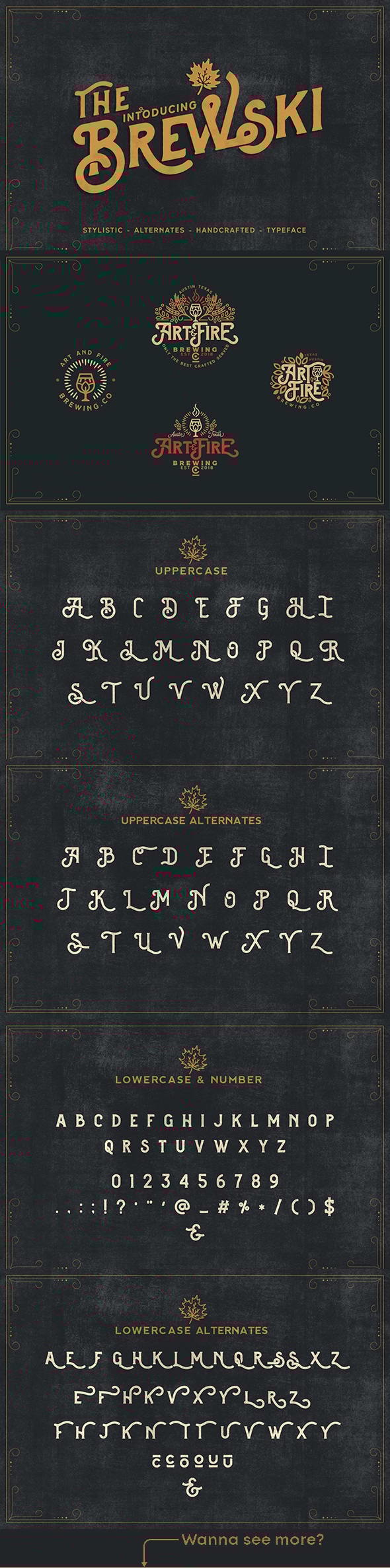
Brewery Vintage Typeface is a carefully crafted retro serif font ideal for breweries, bar branding, or any vintage-themed project needing authentic character. It offers layered styles for depth and a timeless look perfect for signage, merchandise, and logo designs.
Who it's suitable forCraft beverage brands, vintage logo designers, event marketers
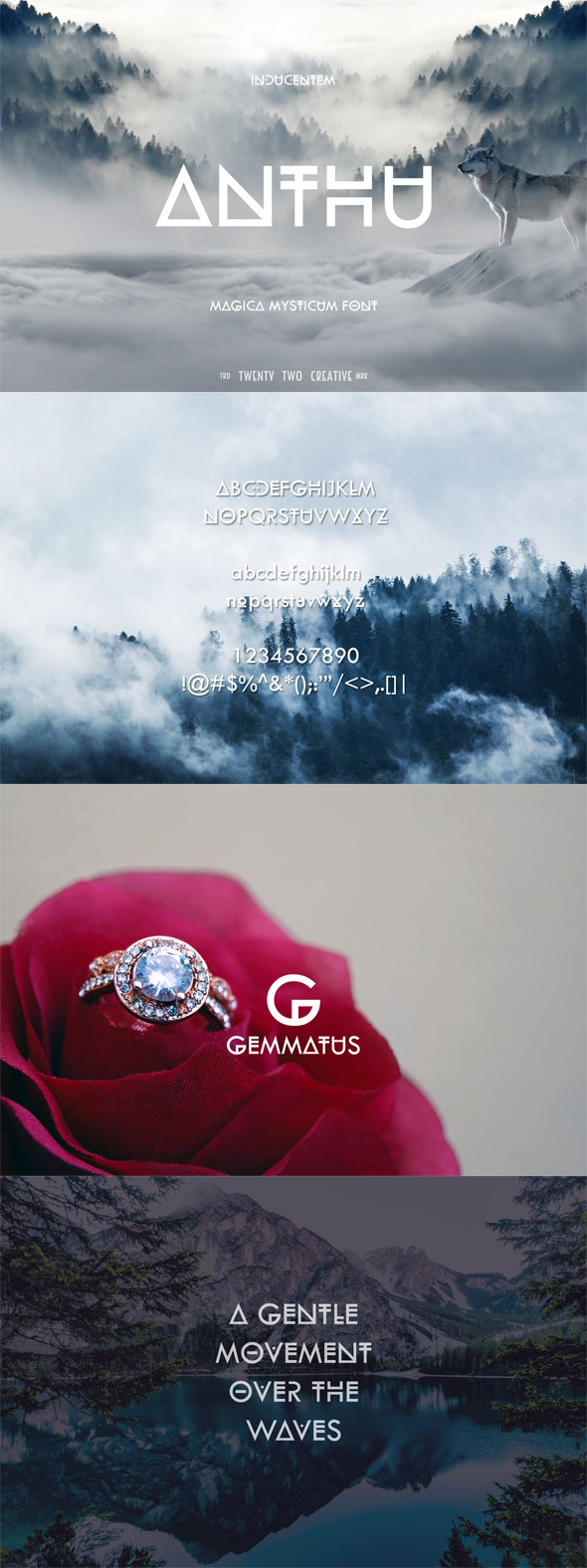
Anthu offers a mystical, hand-crafted aesthetic that’s perfect for fantasy book covers, tarot brands, and mystical event promotions. Its elegant curves and decorative details bring a unique, enchanting vibe to your titles and graphics.
Who it's suitable forBook cover designers, mystical brands, tarot creators
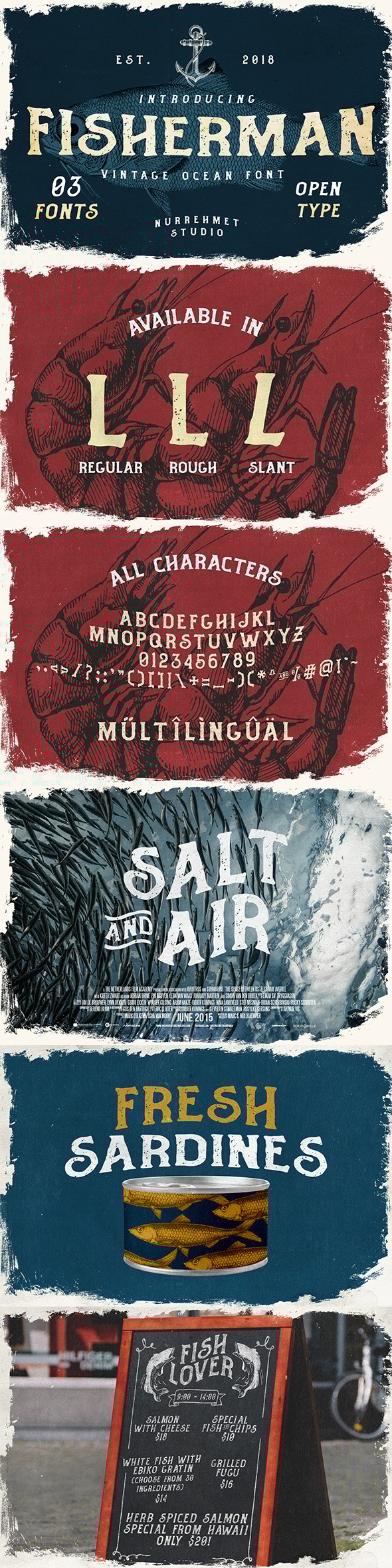
This font family is inspired by vintage ocean themes, making it ideal for seafood brands, nautical posters, and seaside event promotions. Fisherman combines rustic charm with clear readability, providing a versatile tool for logos, labels, and apparel designs.
Who it's suitable forSeafood restaurants, coastal event planners, apparel designers
Lettown Hills is a bold, vintage-inspired font with strong personality, suitable for merchandise, music posters, and standout branding that needs an eye-catching yet classy presence.
Who it's suitable forBand merch designers, poster creators, brand managers
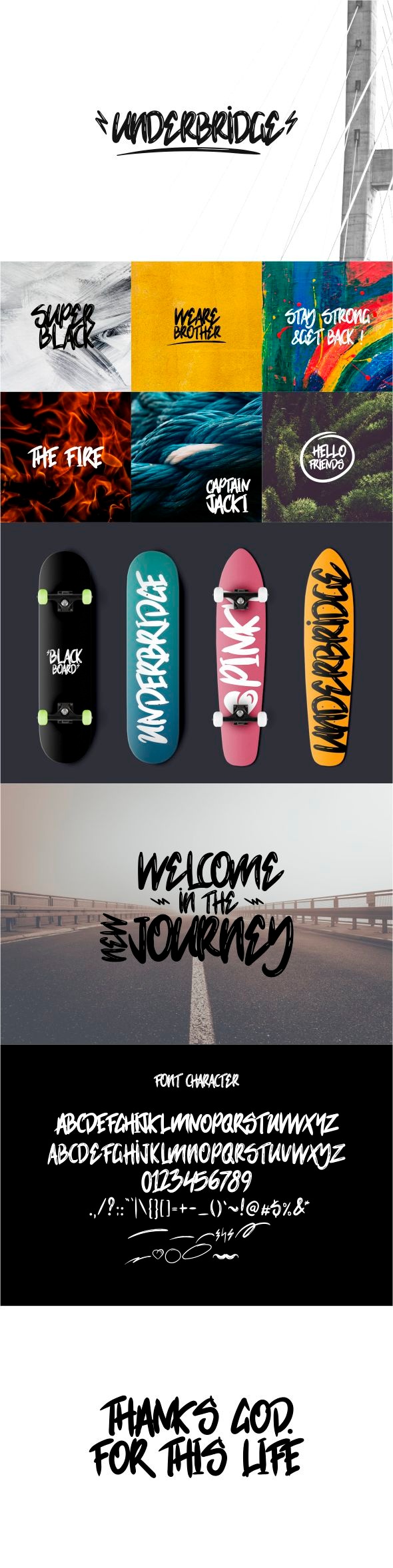
Underbridge Wet is a textured font with a grungy, handmade feel, making it perfect for streetwear branding, music flyers, and edgy projects needing an authentic, raw style.
Who it's suitable forStreetwear brands, music event organizers, alternative designers
Articlave is a vintage sans serif font with clean lines and bold curves, suitable for poster titles, apparel branding, and minimalist retro designs that demand attention without clutter.
Who it's suitable forFashion brands, poster designers, minimalist brand creators
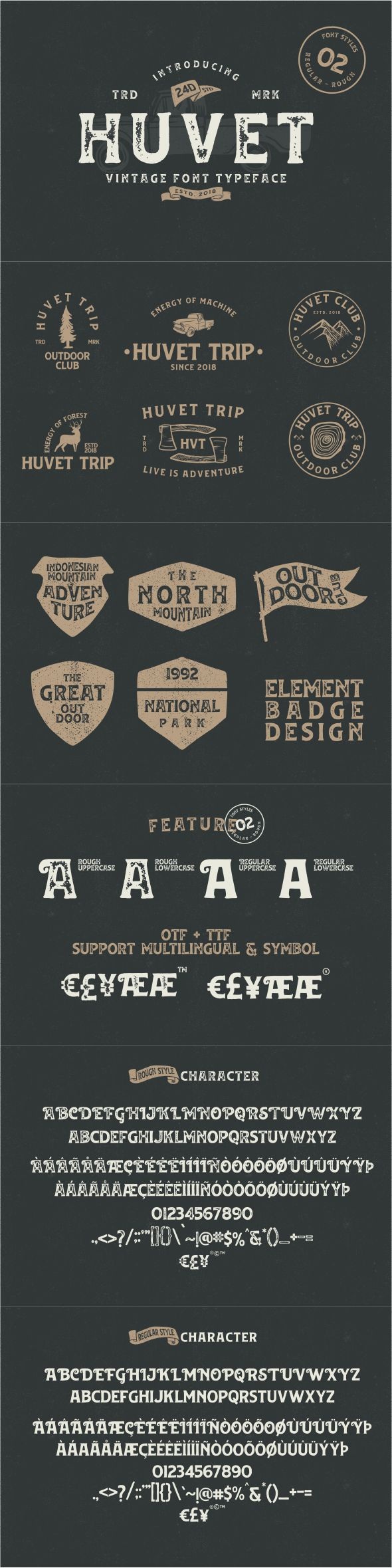
Huvet is a classic vintage typeface with a rugged, masculine feel, perfect for whiskey branding, outdoor event posters, and packaging that needs an adventurous character.
Who it's suitable forLiquor brands, outdoor apparel designers, event marketers
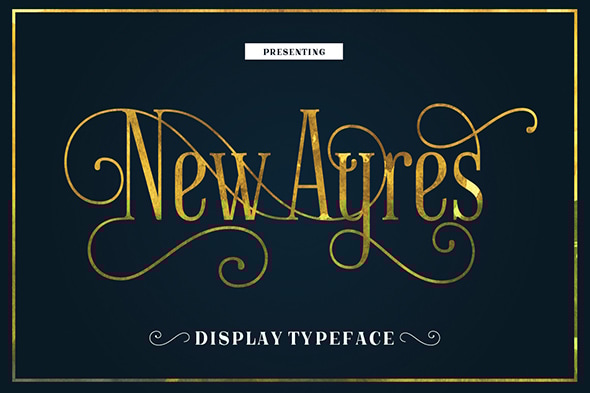
New Ayres is a bold serif font with a distinctive modern vintage look, making it great for book covers, editorial layouts, and branding that needs a touch of classic sophistication.
Who it's suitable forBook publishers, editorial designers, boutique brands
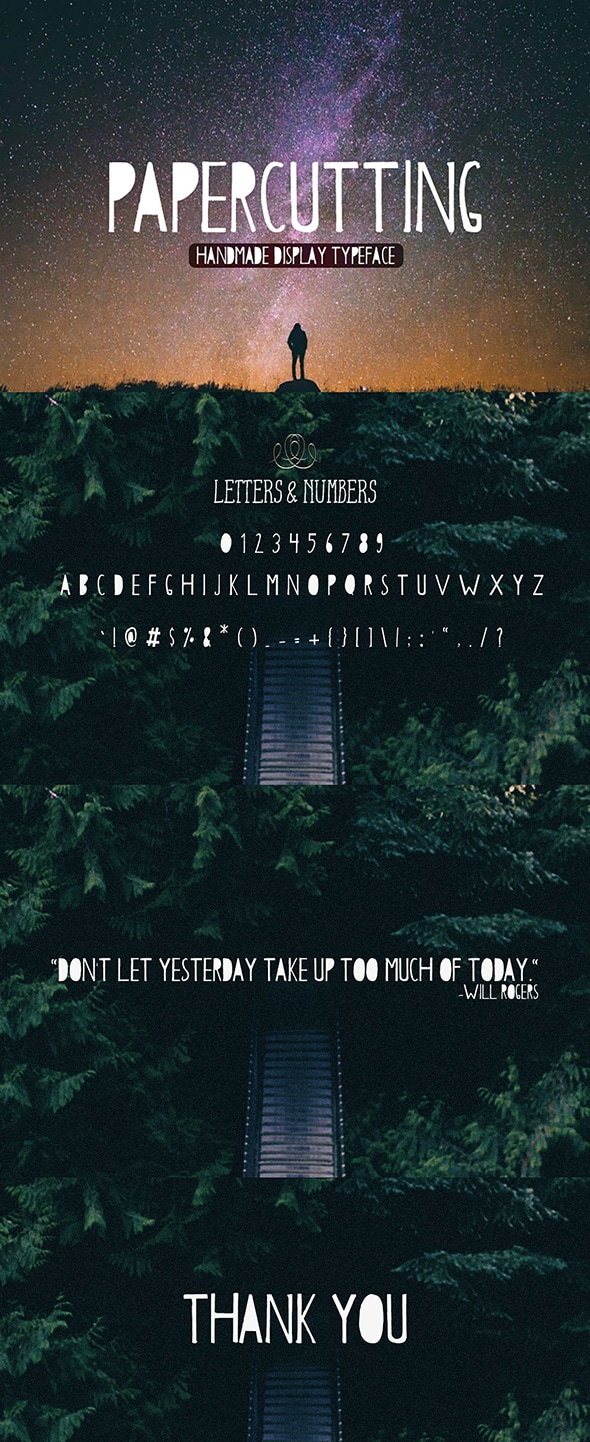
Papercutting Typeface mimics hand-cut paper textures, adding a playful, organic feel to children’s book titles, DIY product branding, and craft-related marketing materials.
Who it's suitable forChildren’s brands, craft creators, Etsy sellers
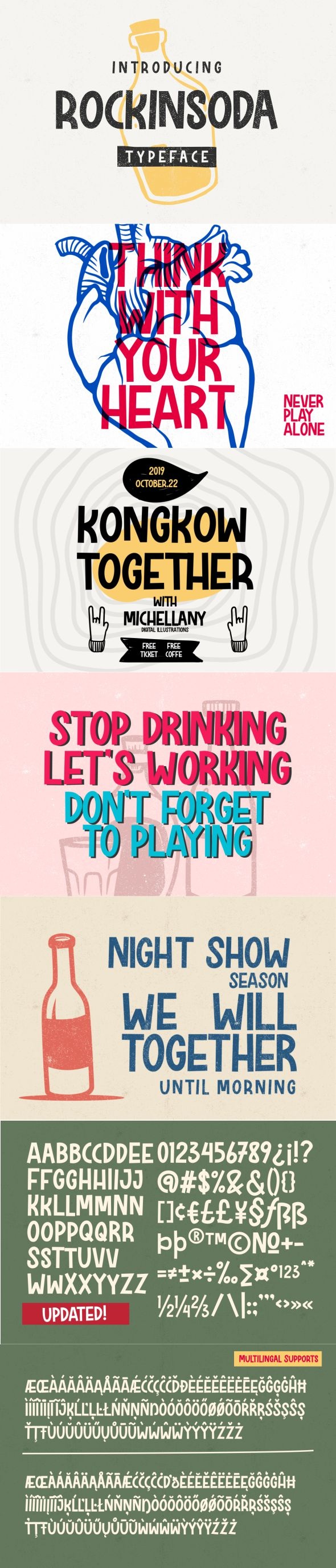
Rockinsoda is a fun, bold display font with a comic-style energy, ideal for playful branding, youth-focused campaigns, and vibrant social media content that needs to pop.
Who it's suitable forYouth brands, social media managers, comic creators
Check the best price hereConclusion: Investing in these top-selling fancy fonts on GraphicRiver is one of the fastest ways to elevate your branding, social media visuals, and client projects without spending hours on complex design work. Pick the font that best aligns with your brand’s personality, download, and watch your designs stand out effortlessly with professional flair.
What software do I need to use these fonts?
These fonts can be used in any design software that supports font installation, including Adobe Illustrator, Photoshop, Canva, and even standard word processing software for everyday use.